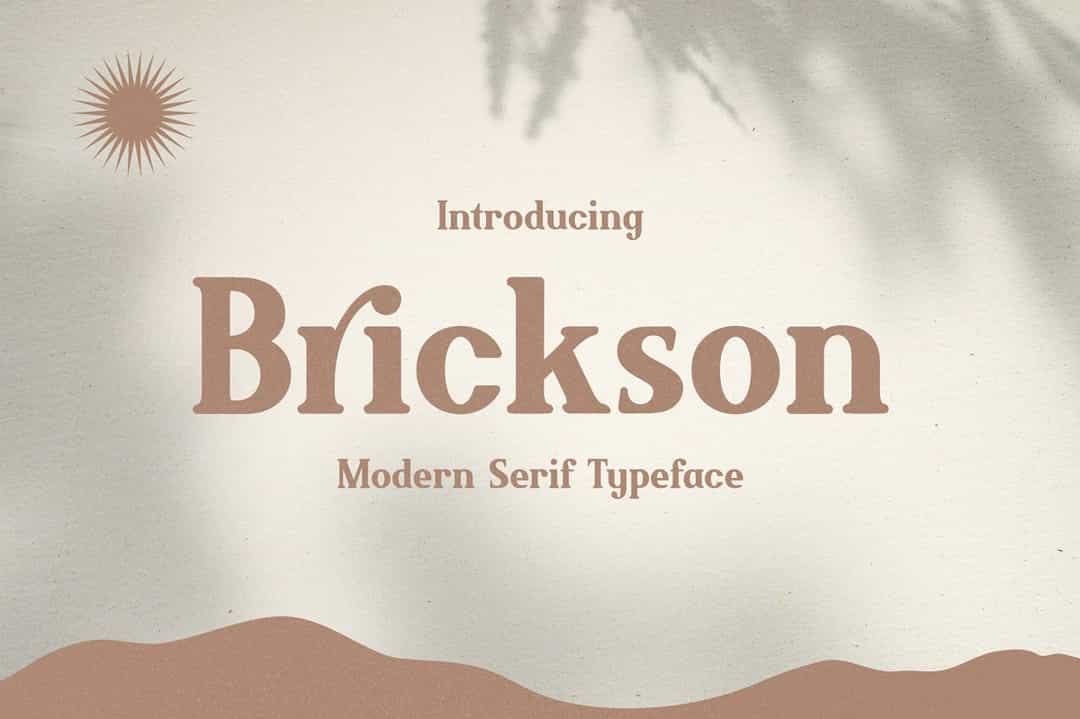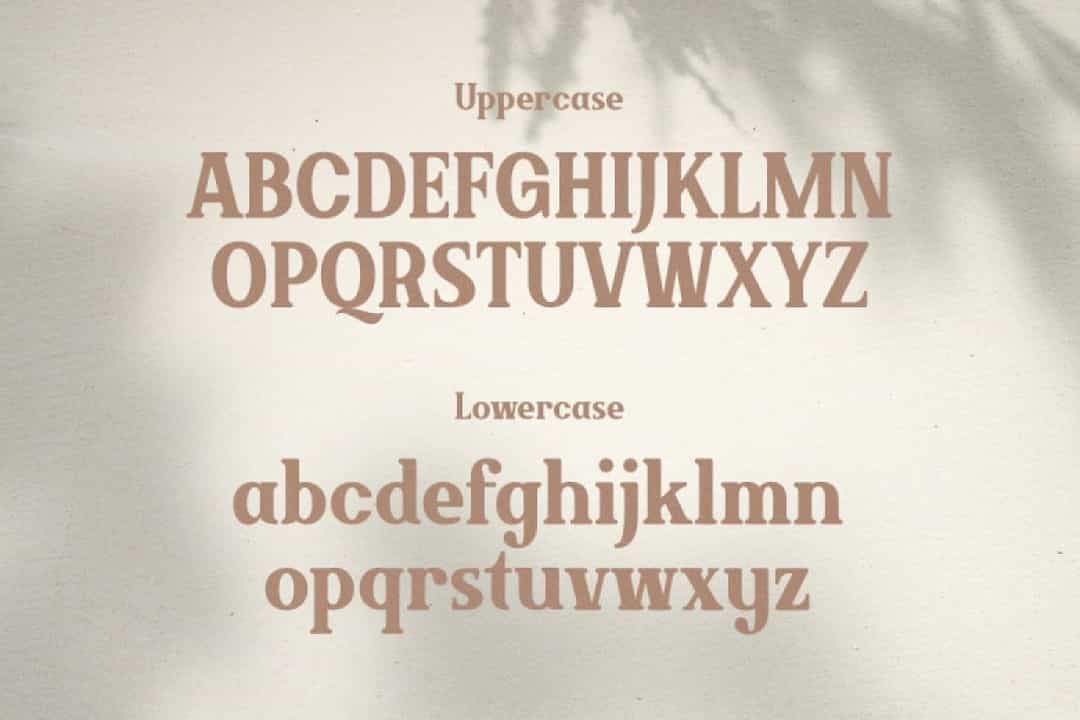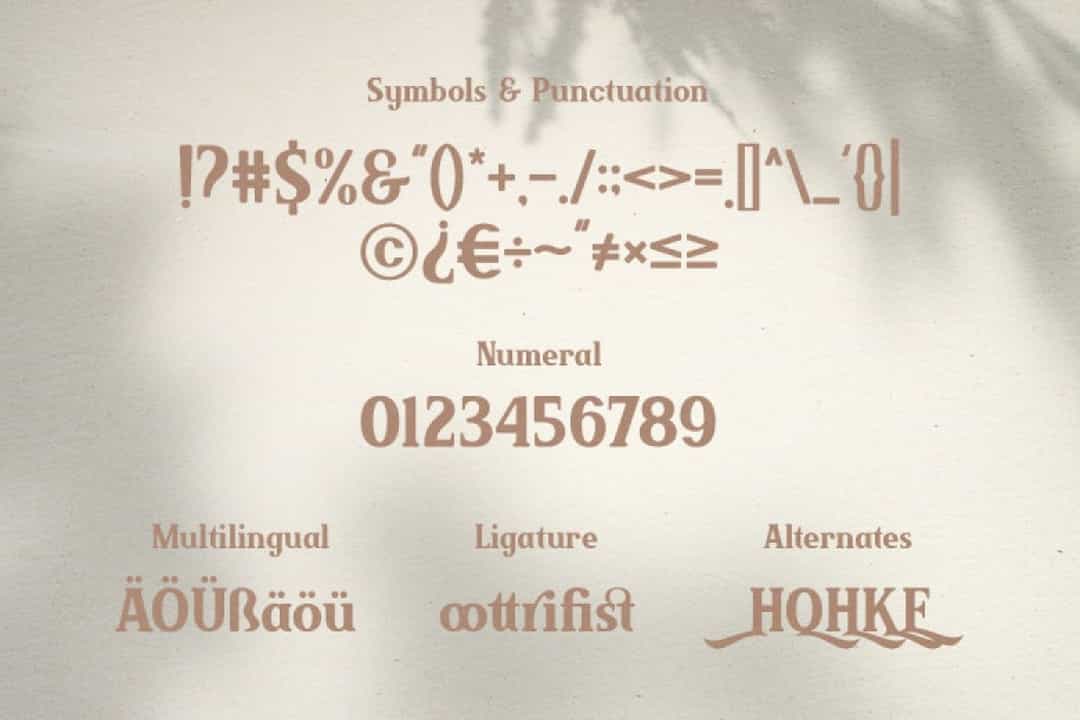
Brickson is a modern serif font that is designed with the elements of the historical style incorporated in it. Designed with precision, this beautiful serif font will go well with a number of different projects and will add refine elegance and understated beauty to it. To make any project look as professional as it should, you should use Brickson.